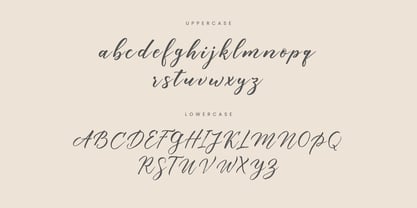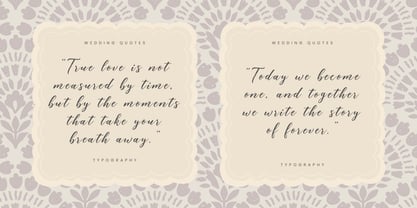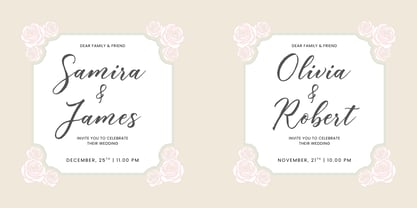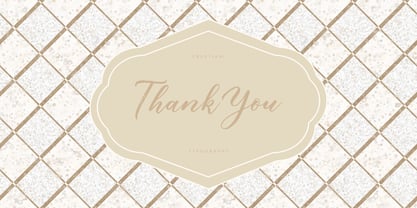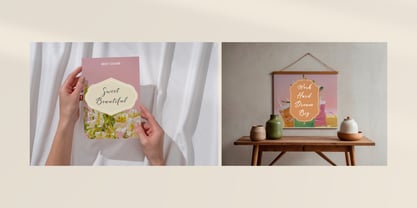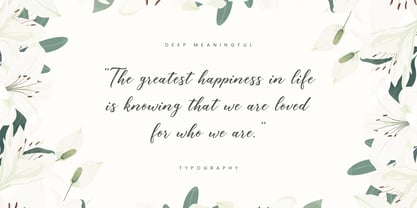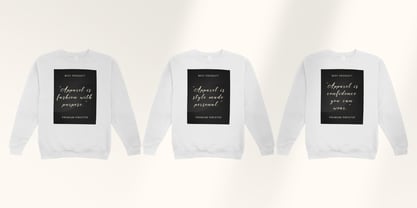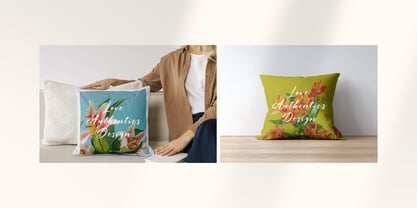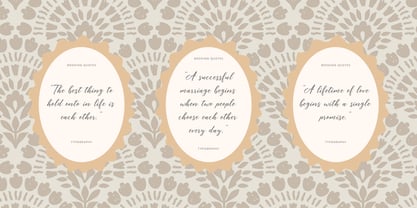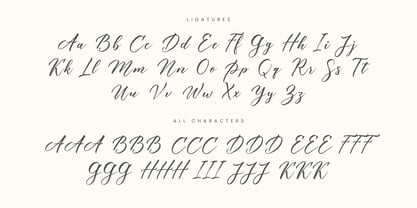
Frustiani
by Gatype
The Frustiani Font Family was designed by khaidir and published by Gatype. Frustiani contains 1 styles. More about this family
Frustiani is an elegant and stylish script font, often used for designs that require a feminine, romantic, or artistic touch.
This font has a smooth, curved handwritten form with a classic accent. The lines are soft, flowing naturally, creating a friendly and aesthetic impression. Suitable for wedding invitations, greeting cards, logo designs, branding, quotes, and decorative posters.
Frustiani creates a warm, graceful, and personal atmosphere, making it a popular choice for designs that want to leave a lasting impression.